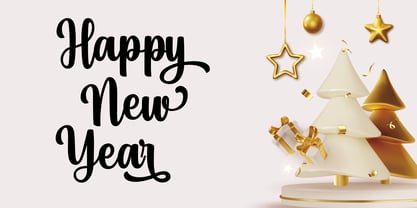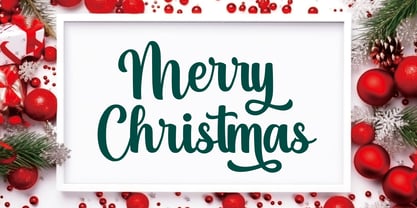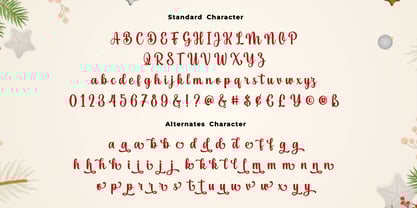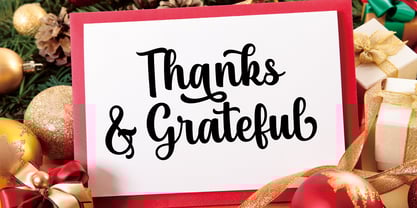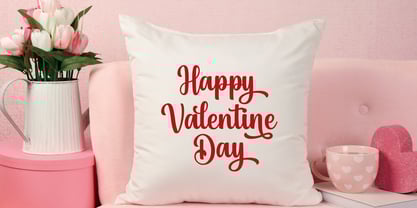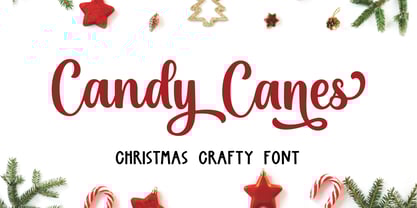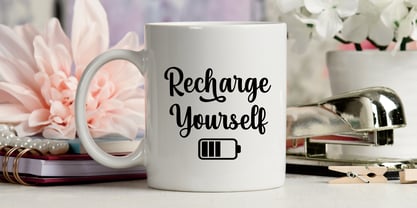
Candy Canes
by Unitype Studio
The Candy Canes Font Family was designed by Faizul Muna and published by Unitype Studio. Candy Canes contains 1 styles. More about this family
Introducing the “Candy Canes” Font – a whimsical typeface that captures the essence of holiday joy and merriment in every swirl and curve. This font is a festive journey through a winter wonderland, where each character is a playful reflection of the magic that fills the air during the holiday season.
The Candy Canes font is a delightful blend of cheer and creativity, reminiscent of a child’s gleeful laughter on a snowy day. Its letters are crafted with a sense of spontaneity, as if they were drawn by hand with candy canes dipped in icing sugar. The strokes and curls mimic the playful path of snowflakes as they dance in the brisk winter breeze.
Whether it’s adorning greeting cards, embellishing festive banners, or enhancing the packaging of holiday treats, the Candy Canes font infuses a touch of playfulness into any project it graces. It adds a dash of childlike wonder to invitations, a sprinkle of whimsy to newsletters, and a sprinkle of magic to any design endeavor.
Designers: Faizul Muna
Foundry: Unitype Studio